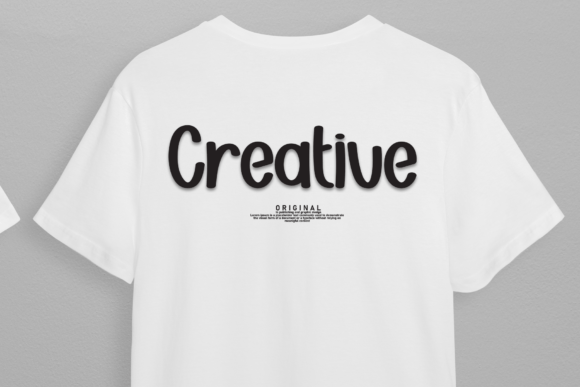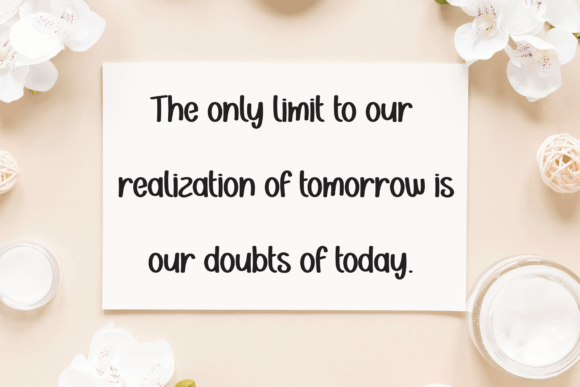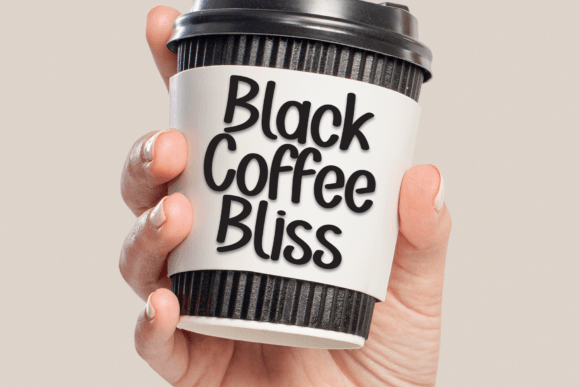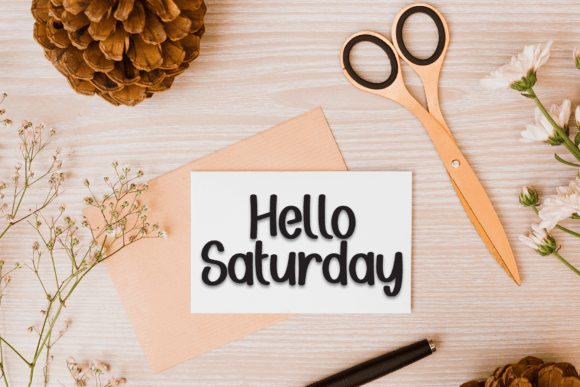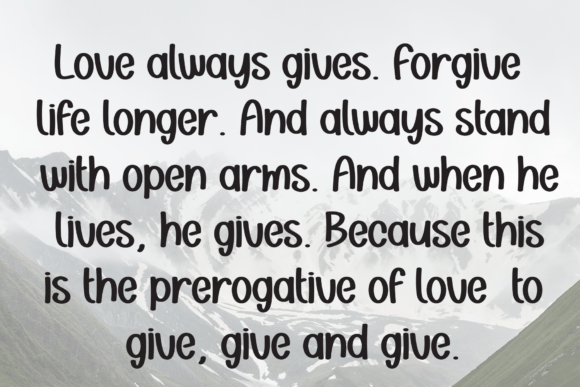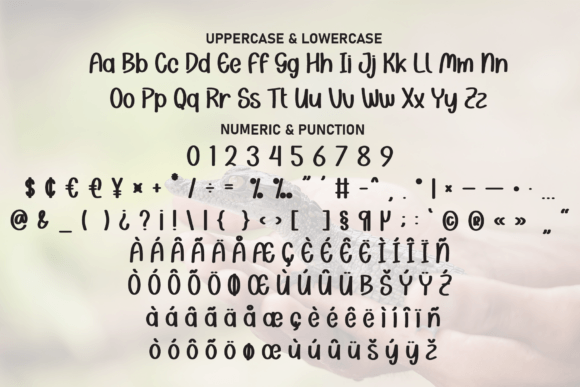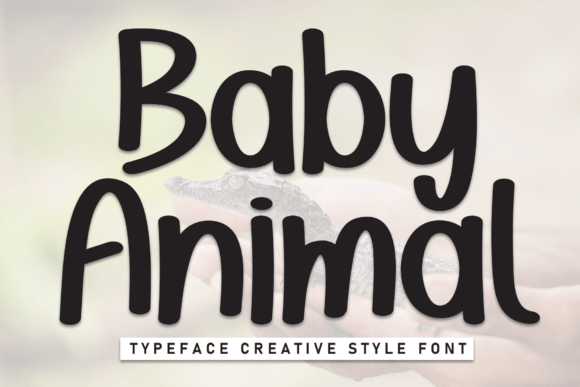
Baby Animal Font: The Cutest and Playful Font for Your Designs
Are you looking for a font that can add a touch of cuteness and playfulness to your designs? Look no further than the Baby Animal font! This adorable font is perfect for anything related to babies and animals, and it’s sure to bring a smile to your audience’s faces.
What is Baby Animal Font?
Baby Animal is a cute and playful font that looks like it was written by hand. It has a fun and bold style that’s perfect for creating eye-catching designs. The font features rounded letters and numbers, with a friendly and approachable feel that’s sure to appeal to audiences of all ages.
Key Features of Baby Animal Font
- Cute and Playful Style: The Baby Animal font has a fun and playful style that’s perfect for designs related to babies and animals.
- Handwritten Look: The font has a handwritten look that gives it a personal and friendly feel.
- Bold and Easy to Read: The font is bold and easy to read, making it perfect for headlines and titles.
- Rounded Letters and Numbers: The font features rounded letters and numbers that add to its cute and playful feel.
Uses for Baby Animal Font
The Baby Animal font is perfect for a wide range of design projects, including:
- Baby and Kids’ Products: The font is perfect for designing labels, packaging, and marketing materials for baby and kids’ products.
- Animal-Themed Designs: The font is also great for designing animal-themed posters, flyers, and social media graphics.
- Crafting and DIY Projects: The font is perfect for crafters and DIY enthusiasts who want to add a personal touch to their projects.
- Digital and Print Designs: The font can be used for both digital and print designs, including websites, blogs, and social media graphics.
Why Designers and Crafters Love Baby Animal Font
Designers and crafters love the Baby Animal font for its unique and playful style. Here are just a few reasons why:
- High-Quality Design: The font has a high-quality design that’s perfect for professional-looking designs.
- Customizable: The font can be customized to fit your design needs, including adjusting the size, color, and style.
- Support for Multiple Languages: The font supports multiple languages, making it perfect for designers and crafters who work with international clients.
Tips for Using Baby Animal Font
Here are a few tips for using the Baby Animal font in your designs:
- Use it for Headlines and Titles: The font is perfect for headlines and titles, where its bold and playful style can really shine.
- Pair it with Other Fonts: The font can be paired with other fonts to create a unique and interesting design.
- Experiment with Colors and Textures: The font can be customized with different colors and textures to add depth and interest to your design.
The Baby Animal font is a cute and playful font that’s perfect for designers and crafters who want to add a touch of fun and personality to their designs. With its bold and easy-to-read style, rounded letters and numbers, and support for multiple languages, this font is sure to become a favorite in your design toolkit. So why wait? Download the Baby Animal font today and start creating adorable designs that will delight your audience!